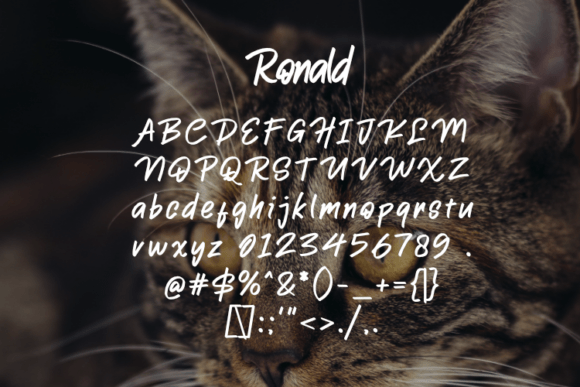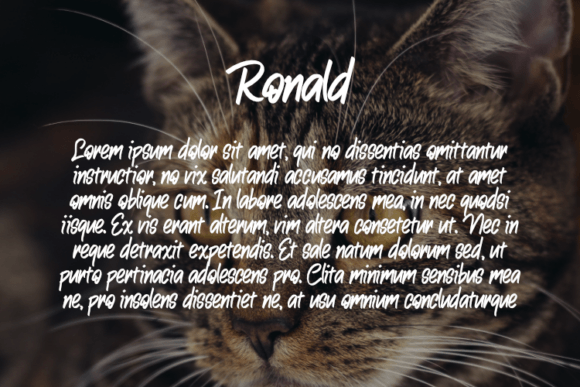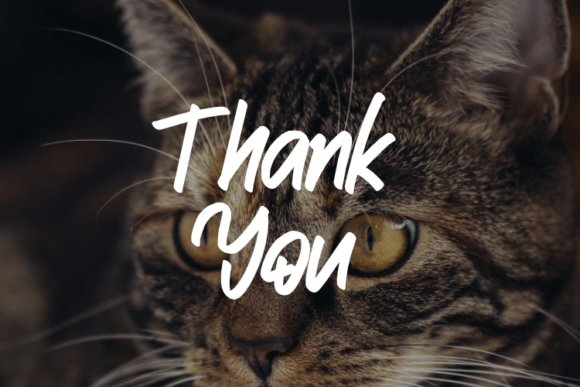
Introduction to Ronald Font
Presenting “Ronald,” a versatile font primed for garment and product design.
Key Features of Ronald Font
Ronald Font offers exceptional quality and versatility, making it a valuable addition to your design toolkit. Whether you’re creating for personal projects or commercial use, Ronald Font delivers professional results.